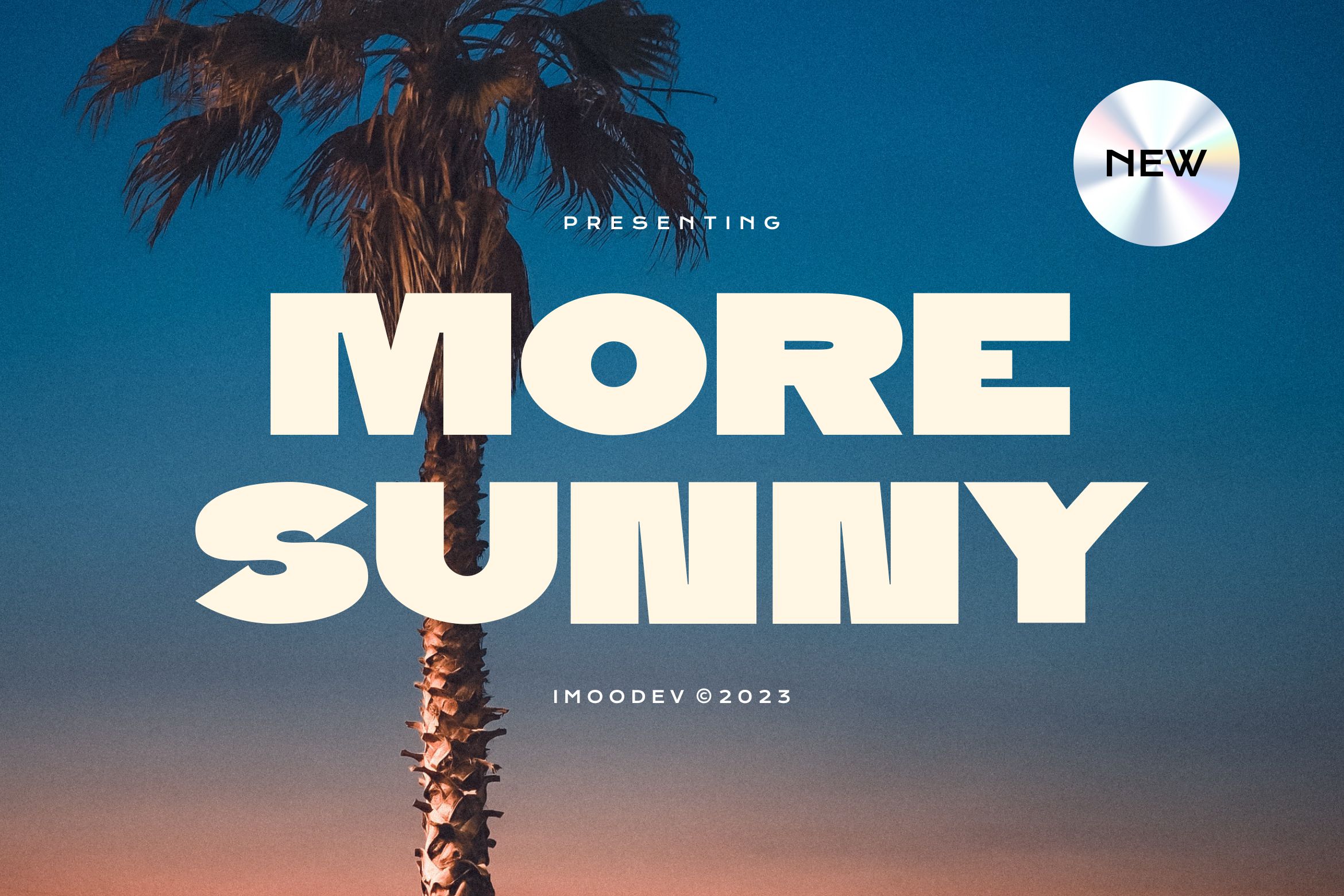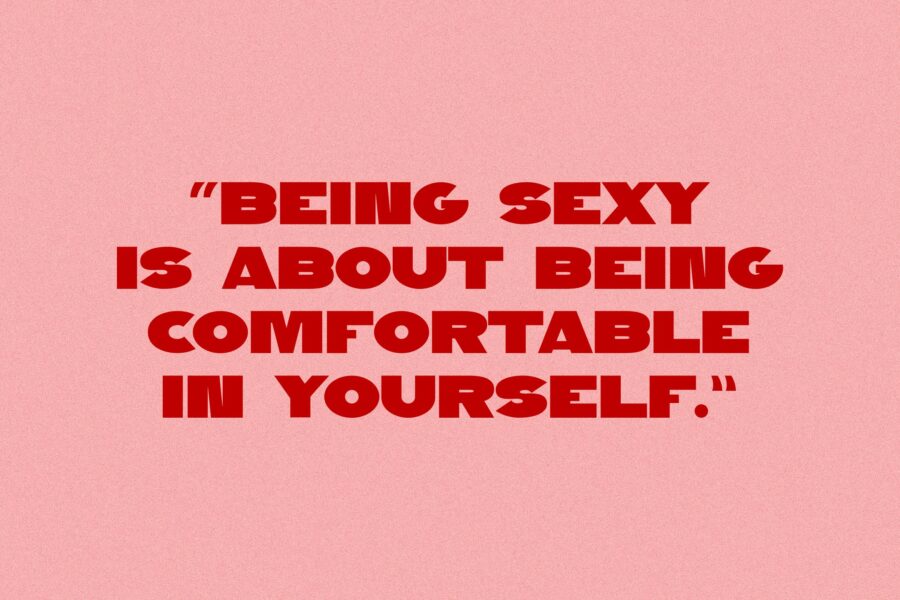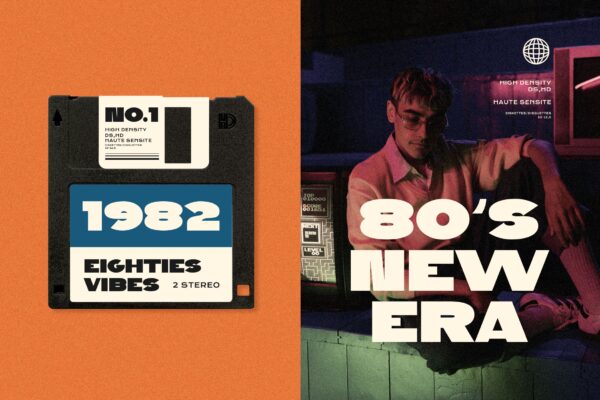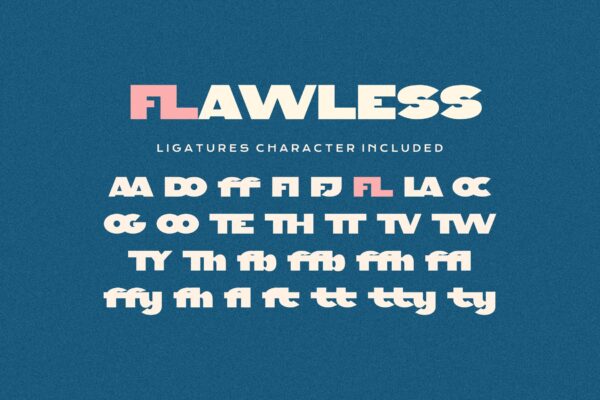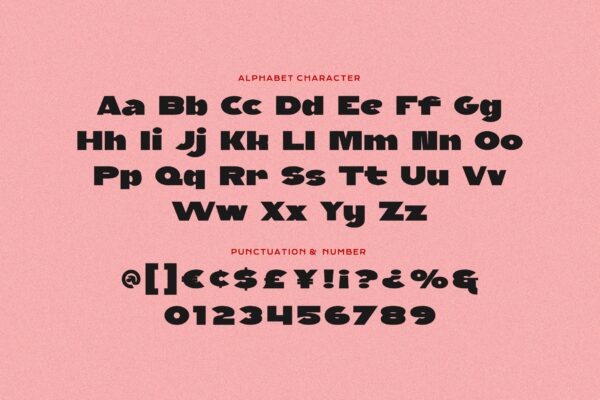
More Sunny is a bold retro-inspired typeface that captures the vibrant spirit of the 70s and 80s. With its thick geometric shapes and strong personality, this font is perfect for creating eye-catching headlines, posters, album covers, and branding projects that demand attention. The unique letterforms give a nostalgic yet modern feel, making it an excellent choice for both vintage-themed and contemporary designs.
Equipped with ligatures, alternates, and complete multilingual support, More Sunny offers flexibility and creativity for designers who want to stand out. Whether you’re designing for fashion, music, lifestyle, or editorial projects, this font will instantly add a confident and stylish edge to your visuals.